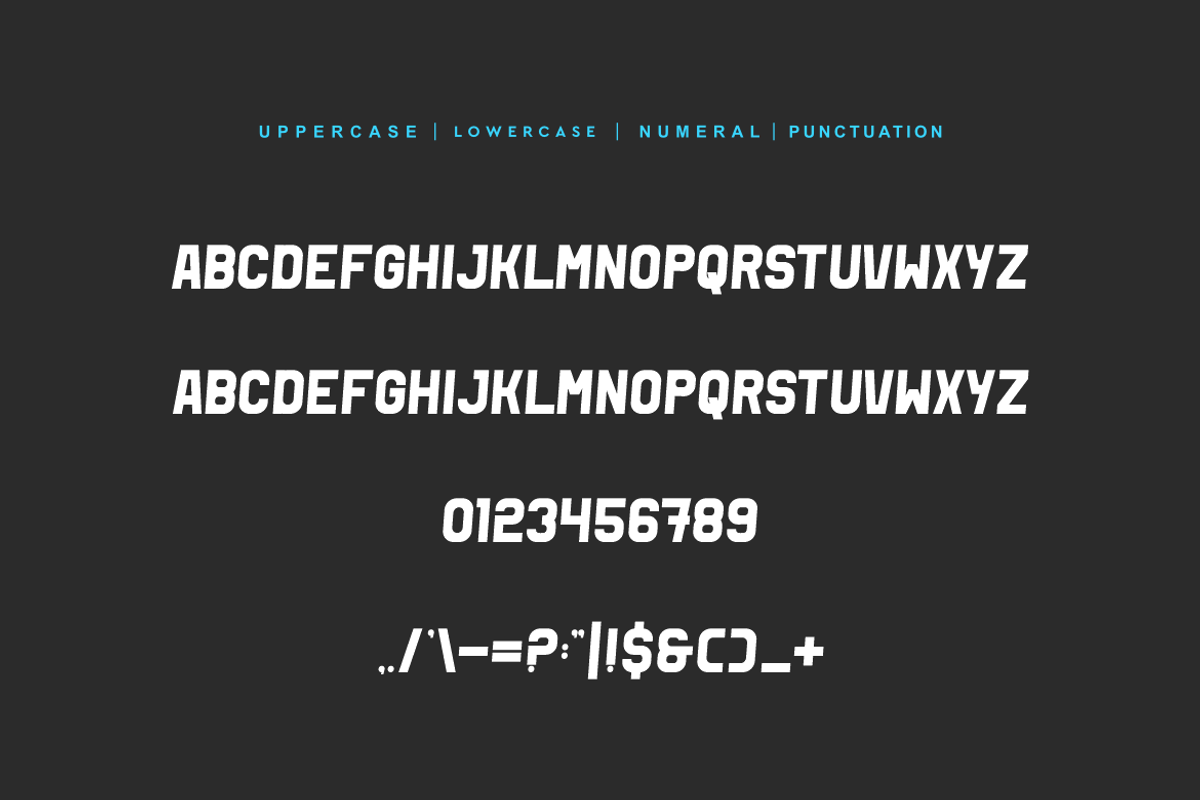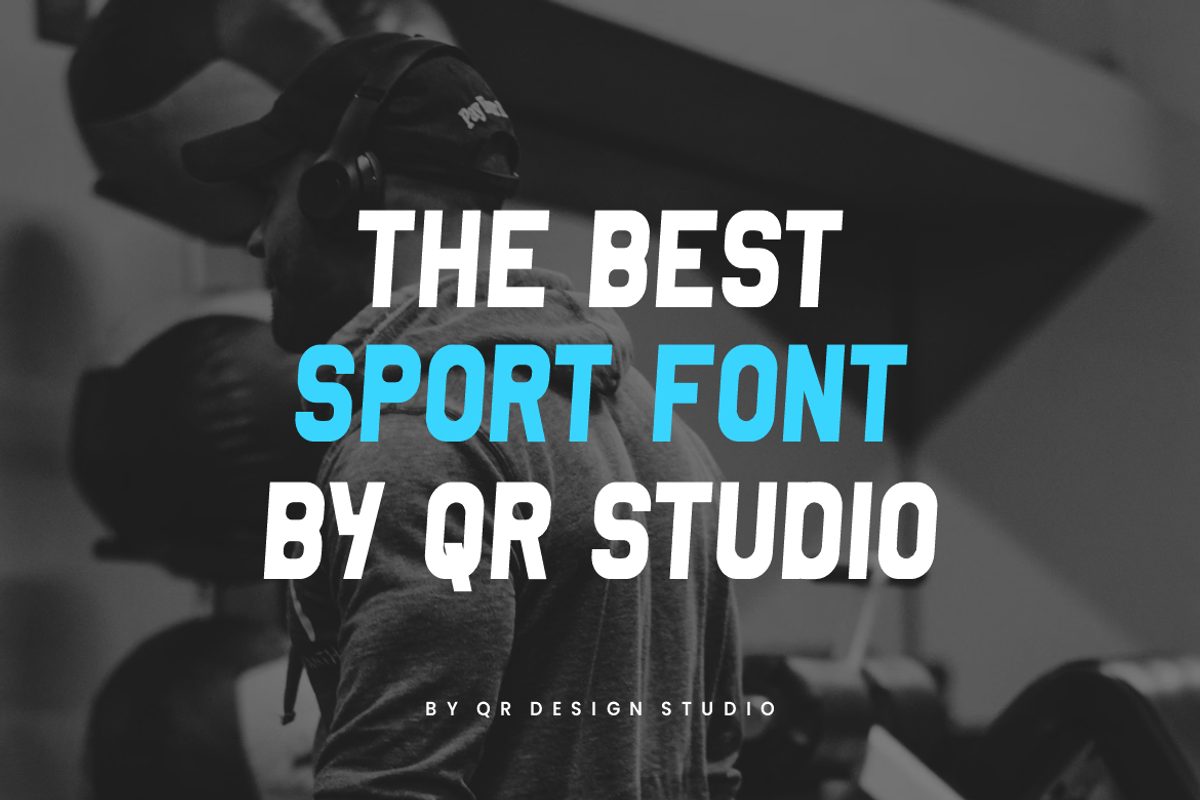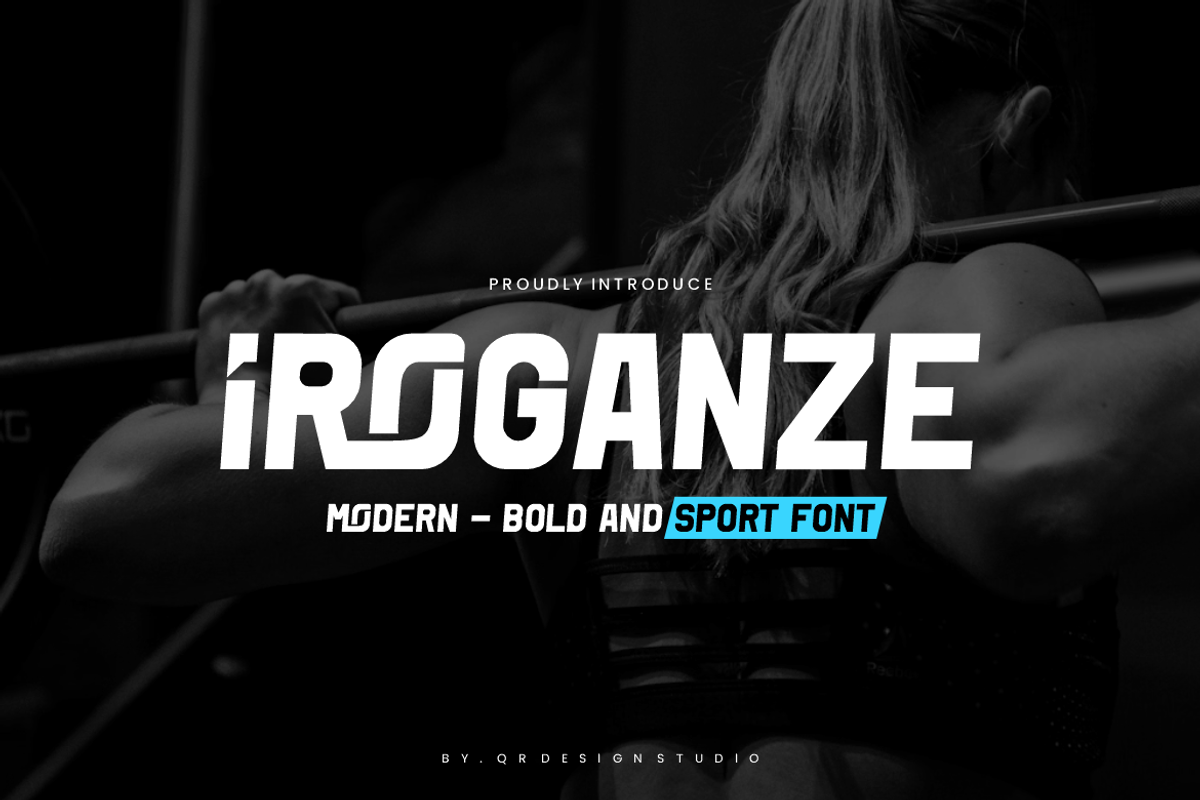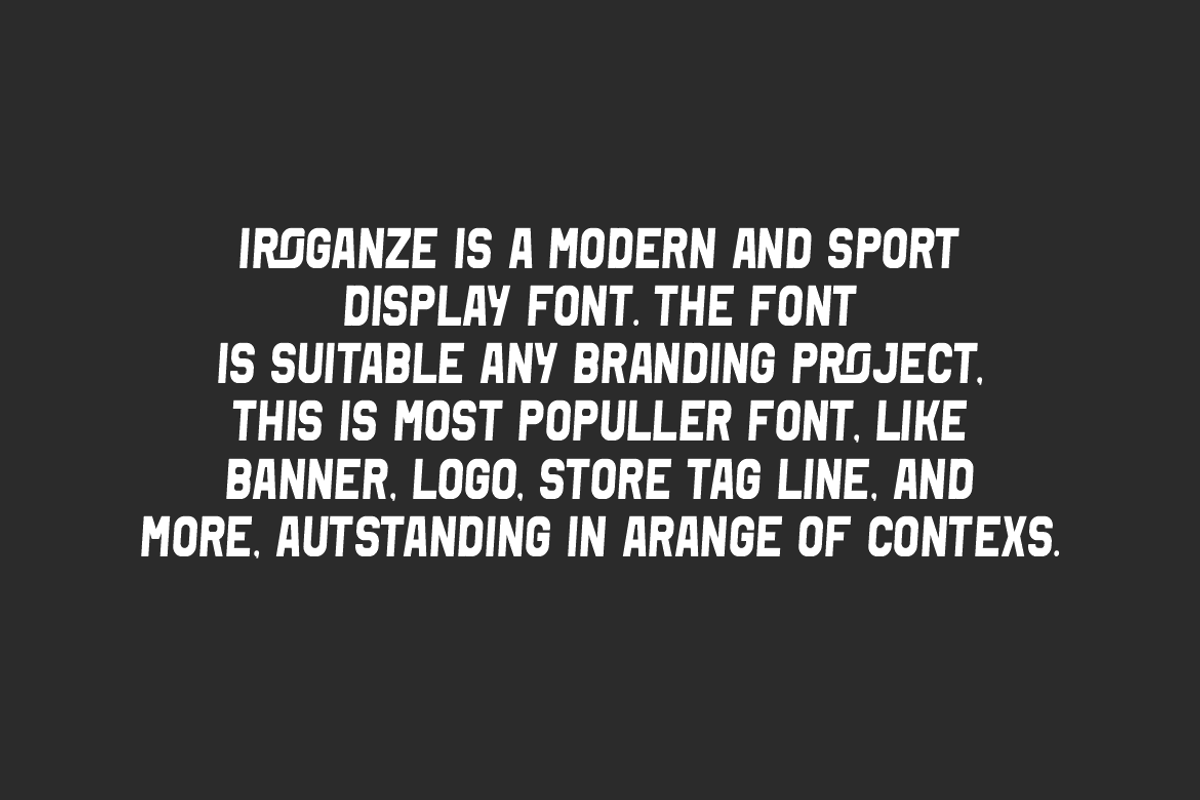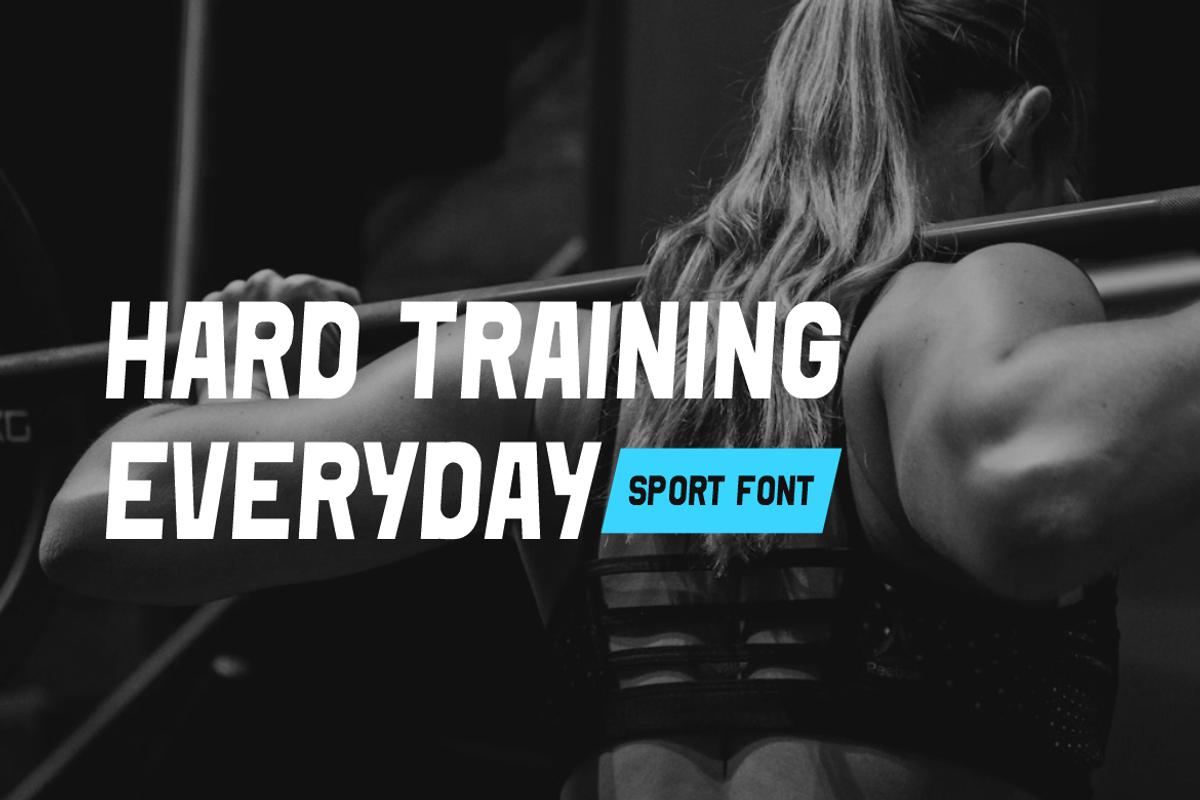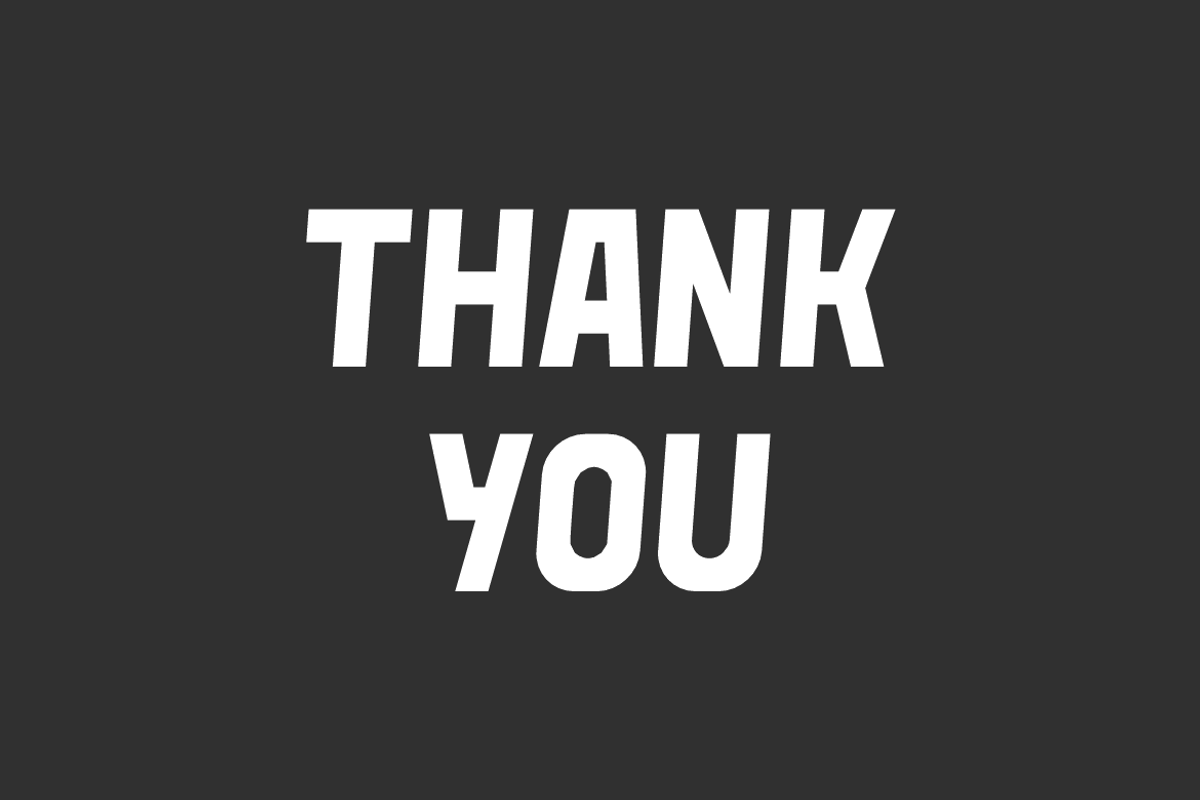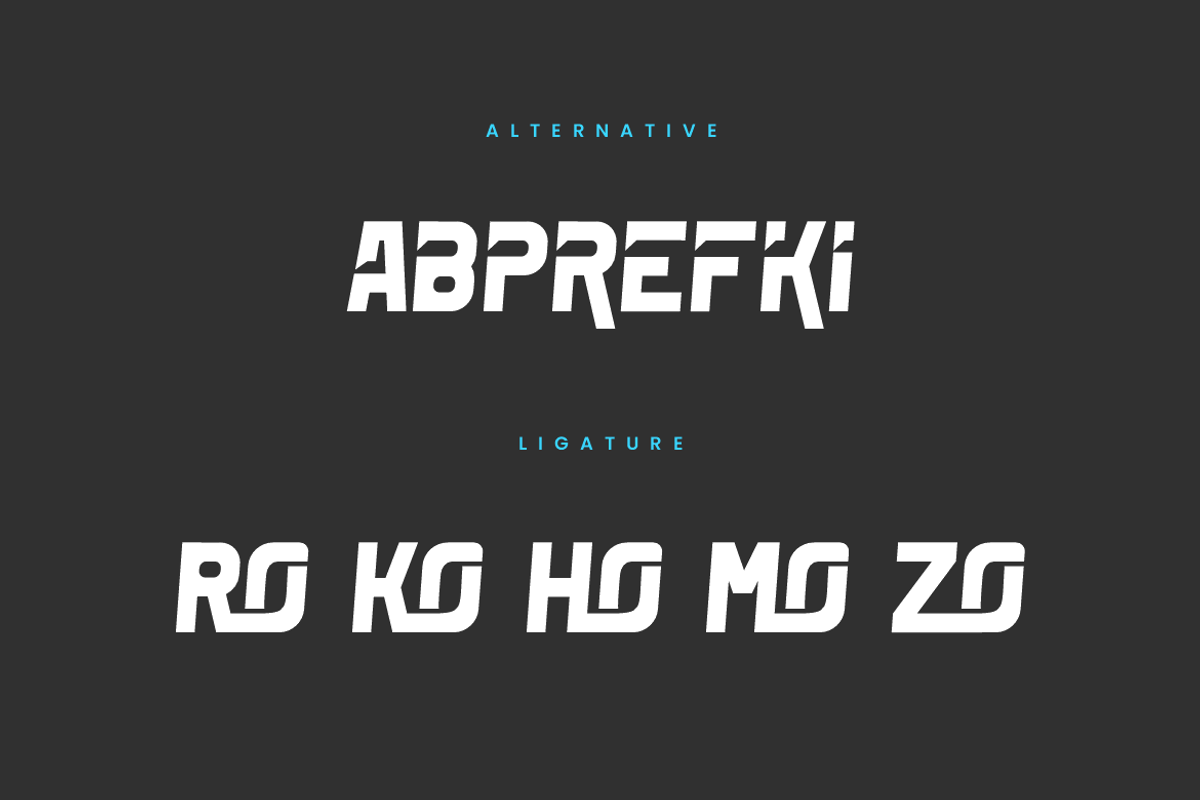
Iroganze - Thick & Sport Font
Iroganze Font is a bold and authentic display font. The font is suitable for any branding project like poster, logo, sport, and many more. Outstanding in a wide range of contexts.